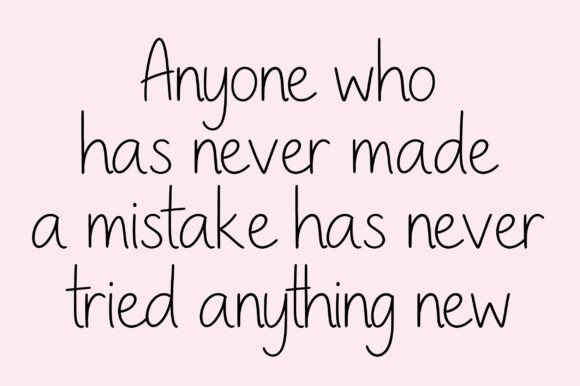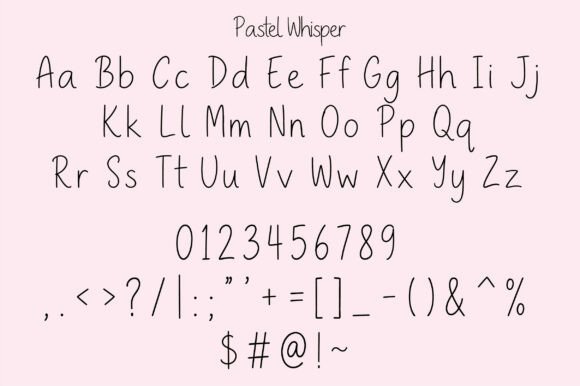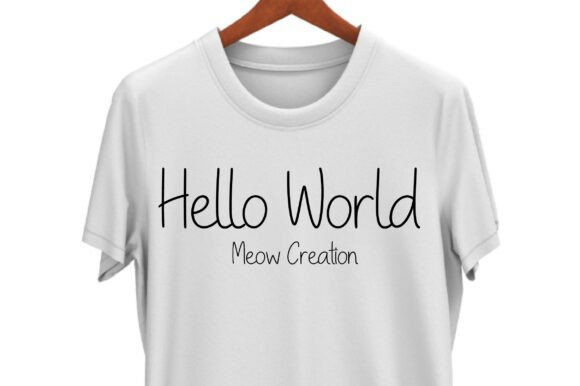
Introduction to Pastel Whisper Font
Pastel Whisper is a soft and playful handwritten font with a clean modern style.
Perfect for branding, quotes, T-shirts, tote bags, invitations, social media, packaging, and creative craft projects Its smooth handwritten look adds a warm and charming touch to any design.
Key Features of Pastel Whisper Font
Why Choose Pastel Whisper Font?
Pastel Whisper Font offers exceptional quality and versatility, making it a valuable addition to your design toolkit. Whether you’re creating for personal projects or commercial use, Pastel Whisper Font delivers professional results.